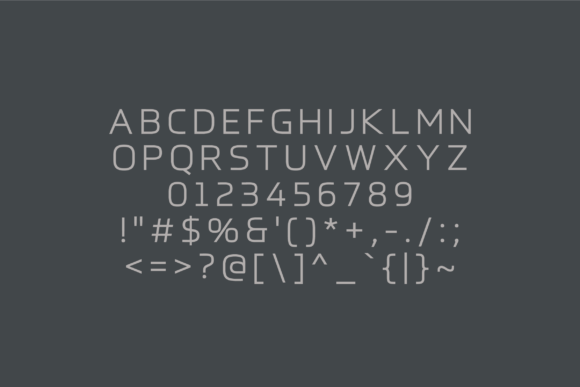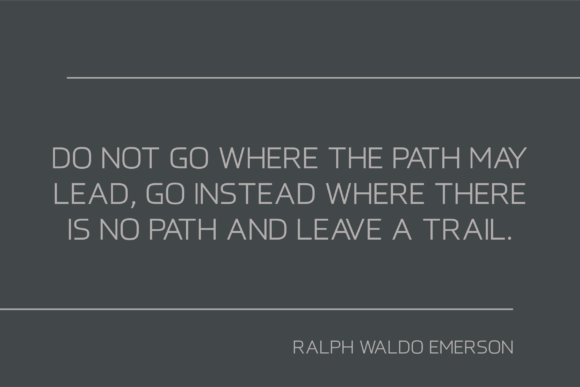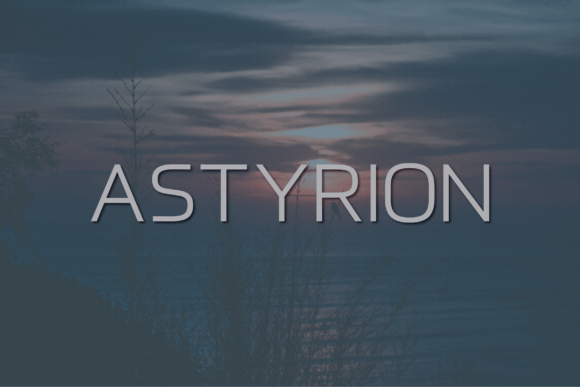
Unveiling Astyrion: The Ultimate Contemporary Sans Serif Typeface
In the realm of typography, a new star has emerged: Astyrion, a sophisticated and modern sans serif typeface that is redefining the world of design. With its clean lines, stylized aesthetic, and versatility, Astyrion is poised to become the go-to font for designers and crafters seeking to elevate their creative projects.
Astyrion’s Design: A Perfect Blend of Form and Function
Astyrion’s design is characterized by its sleek, sans serif lines, which exude a sense of modernity and sophistication. The font features a comprehensive set of uppercase letters, numerals from 0-9, and an assortment of punctuation and symbols, making it an ideal choice for a wide range of applications. Whether you’re designing an elegant wedding invitation, a classy logo, or an engaging advertisement, Astyrion’s clean and stylized design ensures that your message is conveyed with clarity and style.
Endless Applications for Astyrion
One of the most significant advantages of Astyrion is its adaptability. This font can be used in a variety of contexts, from:
- Elegant wedding invitations and stationery
- Classy logos and branding materials
- Engaging advertisements and marketing campaigns
- Compelling magazine layouts and editorial design
- Creative quotes, prints, and other artistic endeavors
Wherever Astyrion is used, it adds a distinctive flavor that elevates the design and captures the audience’s attention.
Why Choose Astyrion?
So, what sets Astyrion apart from other typefaces? Here are a few reasons why designers and crafters are falling in love with this font:
- Modern aesthetic: Astyrion’s sleek design ensures that your work looks contemporary and on-trend.
- Versatility: With its comprehensive character set, Astyrion can be used in a wide range of applications.
- Legibility: The font’s clean lines and stylized aesthetic make it easy to read, even in smaller sizes.
- Uniqueness: Astyrion’s distinctive flavor adds a touch of personality to any design.
Tips for Using Astyrion Effectively
To get the most out of Astyrion, here are a few tips to keep in mind:
- Experiment with font sizes: Astyrion looks great in a range of font sizes, from large headings to smaller body text.
- Play with color: The font’s clean lines and stylized aesthetic make it easy to pair with a wide range of colors.
- Mix and match: Combine Astyrion with other fonts to create a unique and eye-catching design.
In conclusion, Astyrion is a game-changing typeface that is sure to revolutionize the world of design. With its modern aesthetic, versatility, and legibility, it’s the perfect choice for designers and crafters seeking to elevate their creative projects. Whether you’re designing a wedding invitation, a logo, or an advertisement, Astyrion is the ideal font to add a distinctive flavor and capture your audience’s attention.
Get Ready to Shine with Astyrion
So, what are you waiting for? Discover the power of Astyrion and take your designs to the next level. With its comprehensive character set, modern aesthetic, and versatility, Astyrion is poised to become your go-to font for all your creative endeavors.